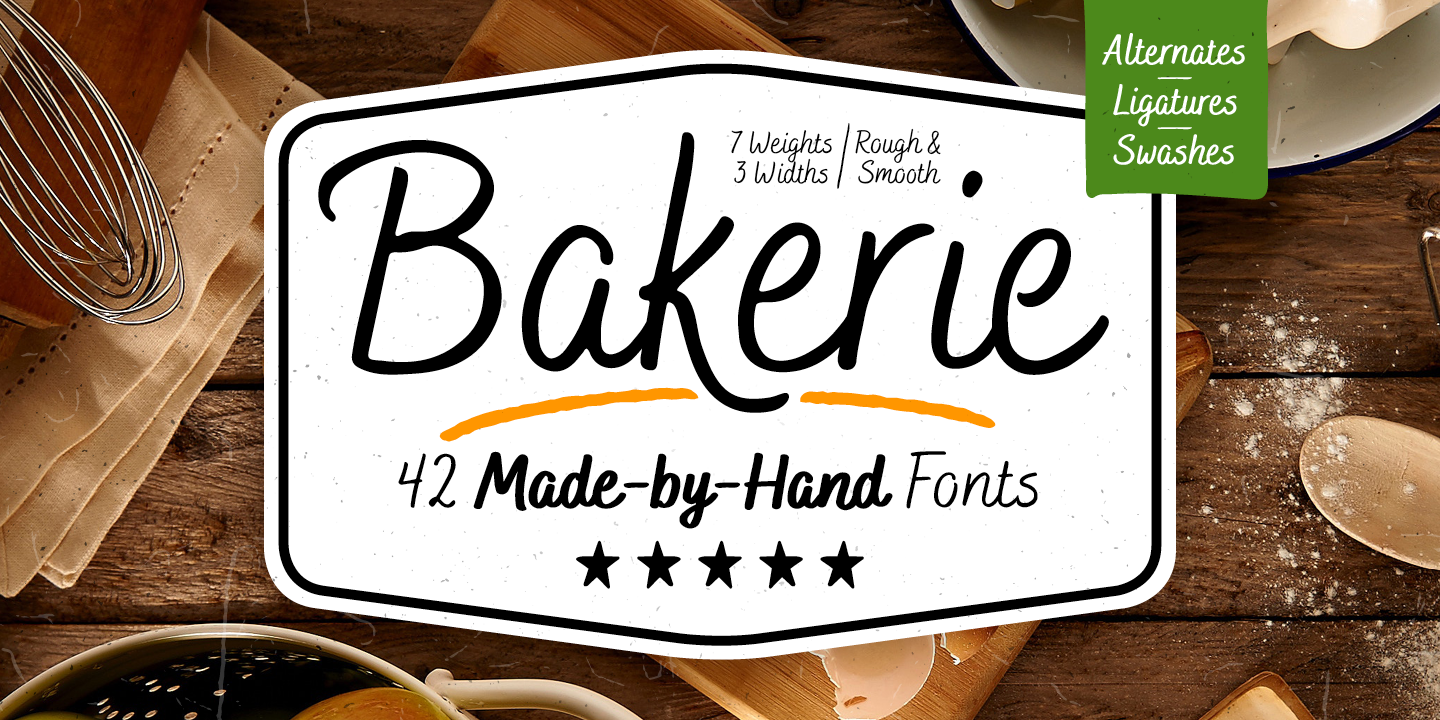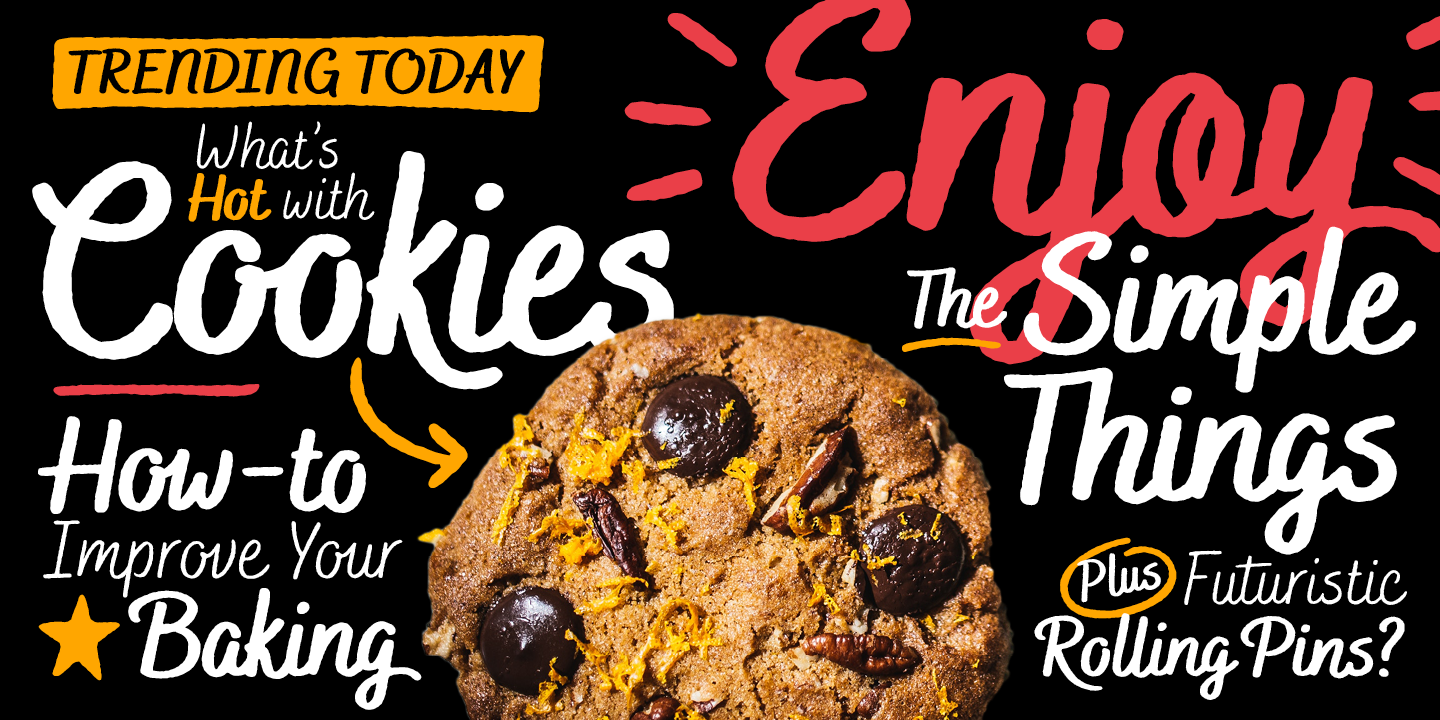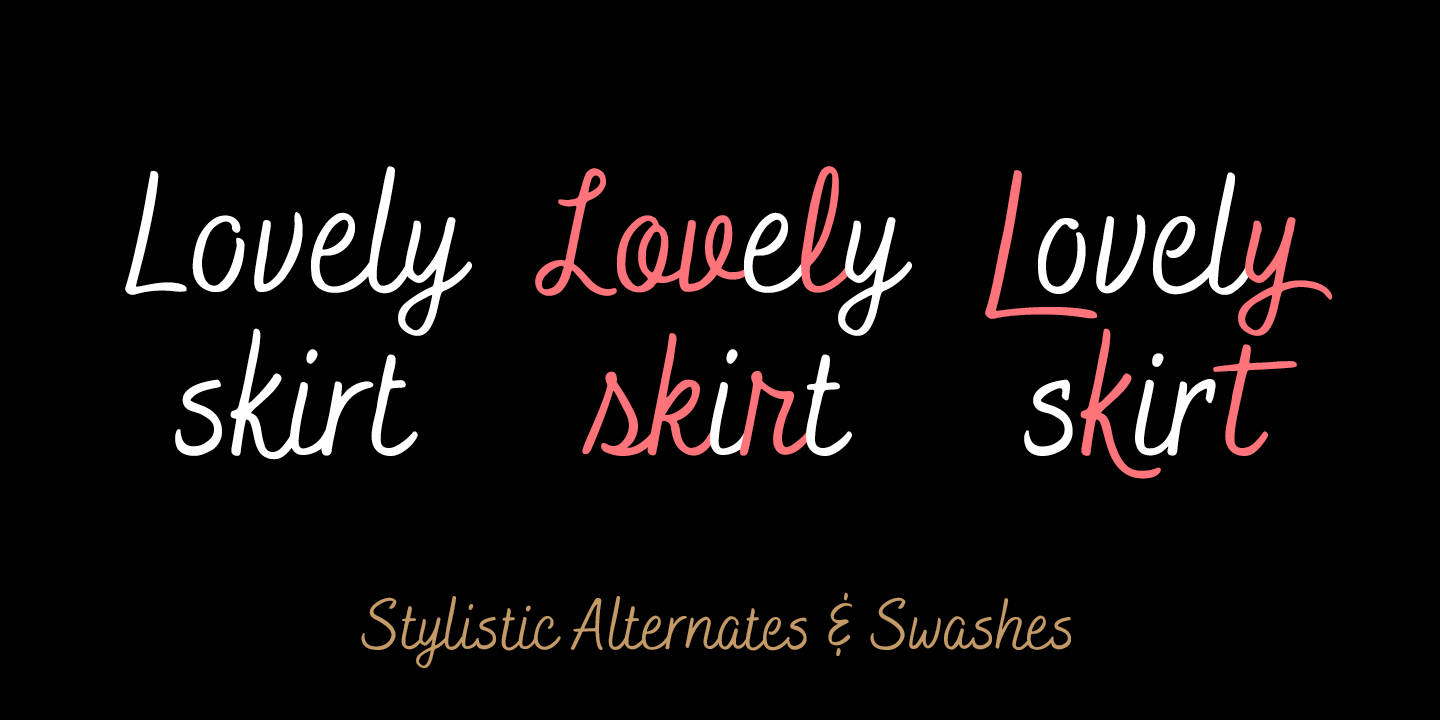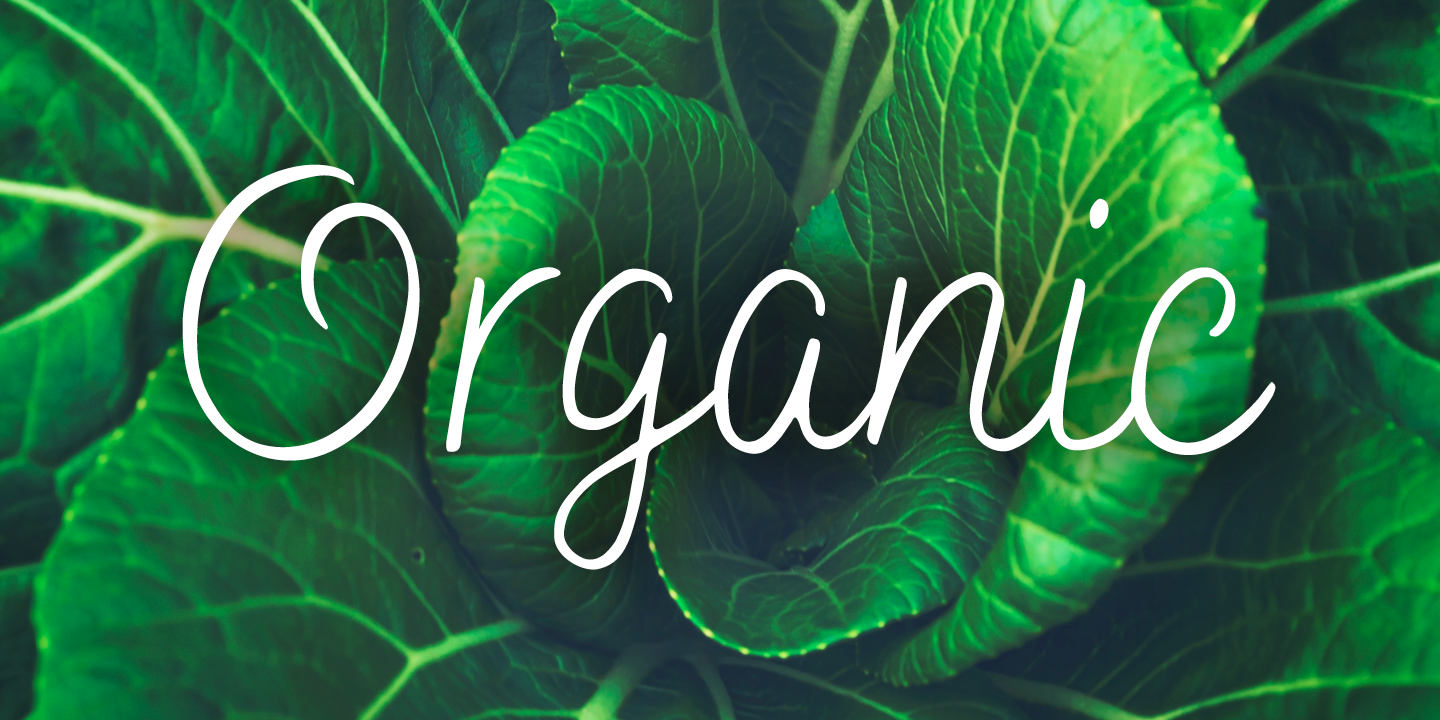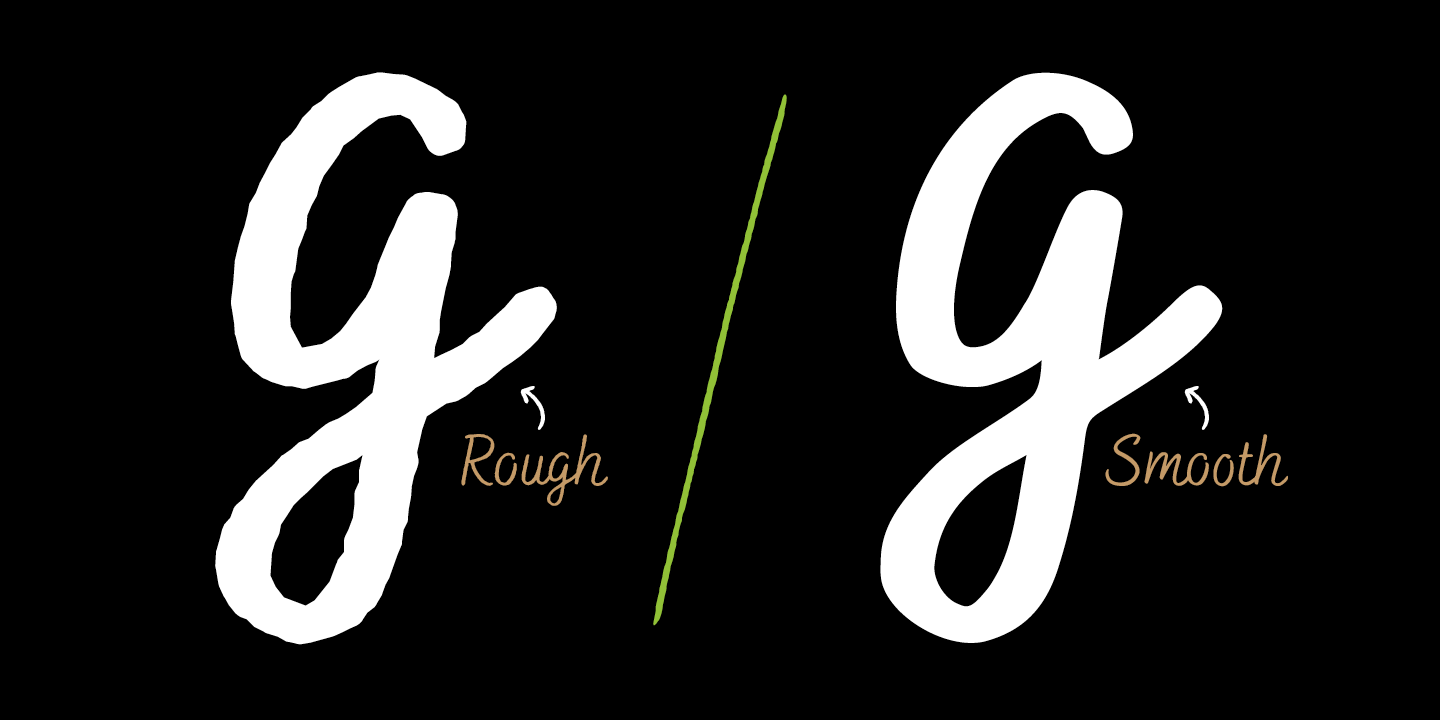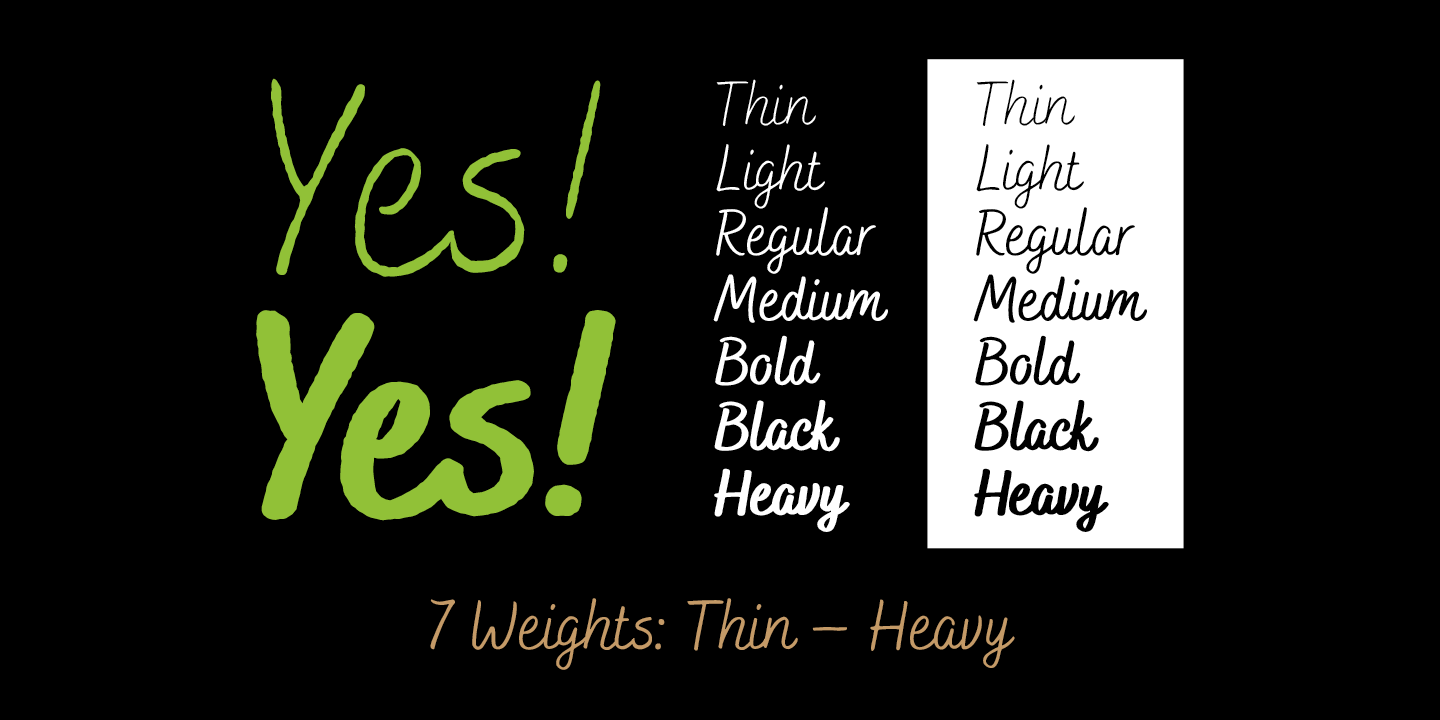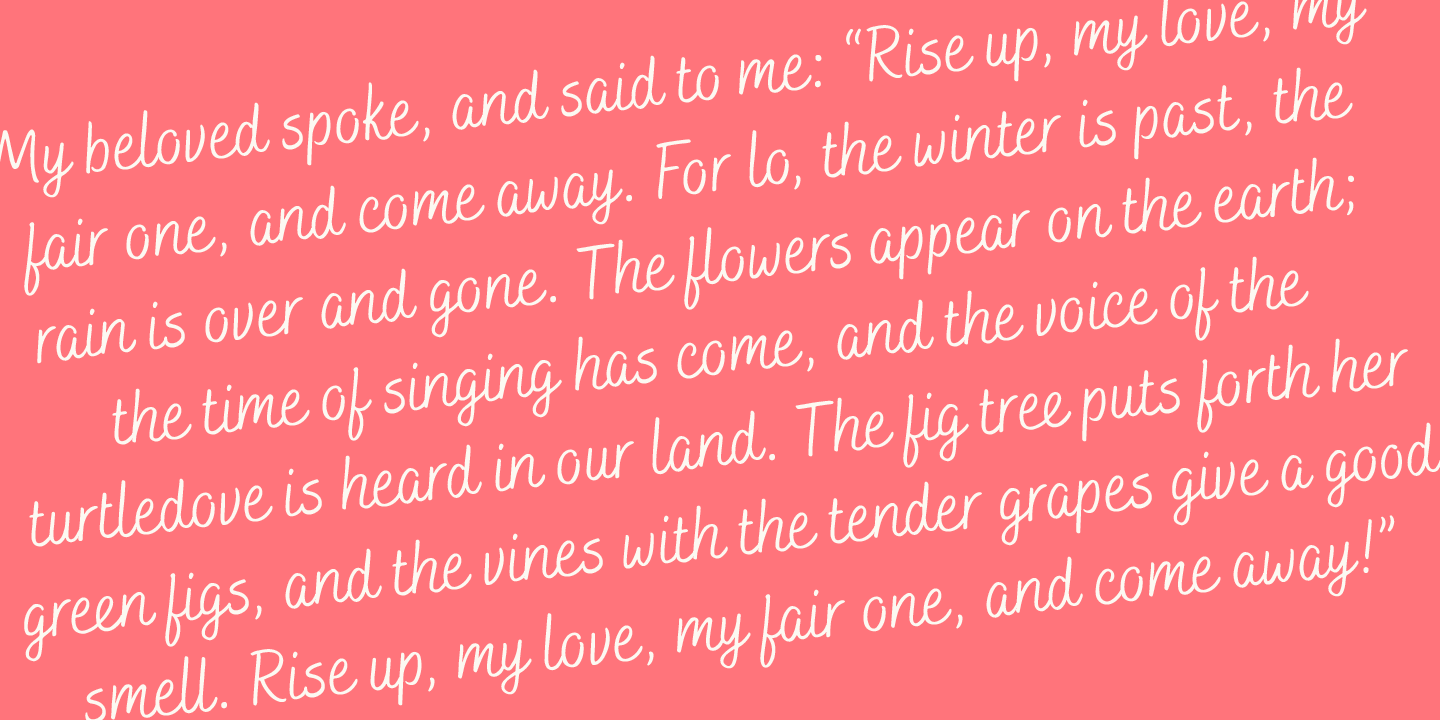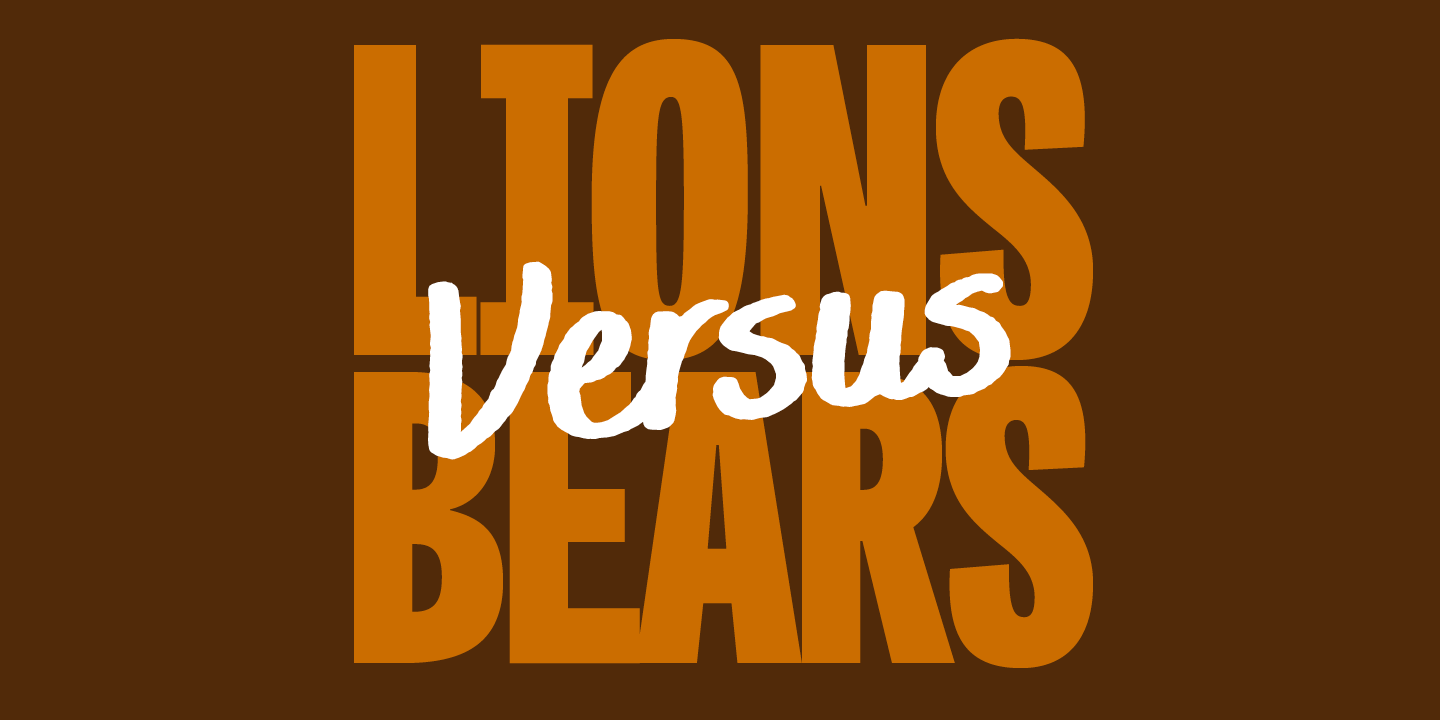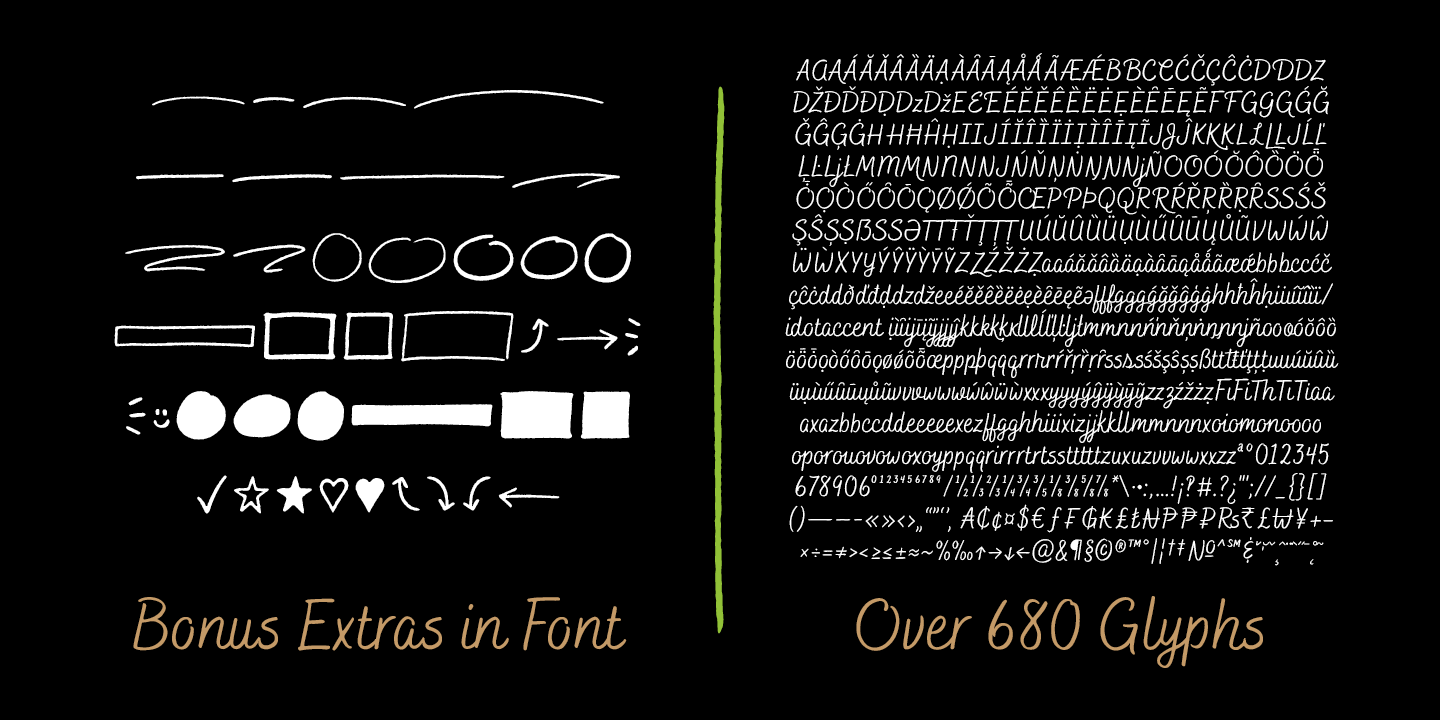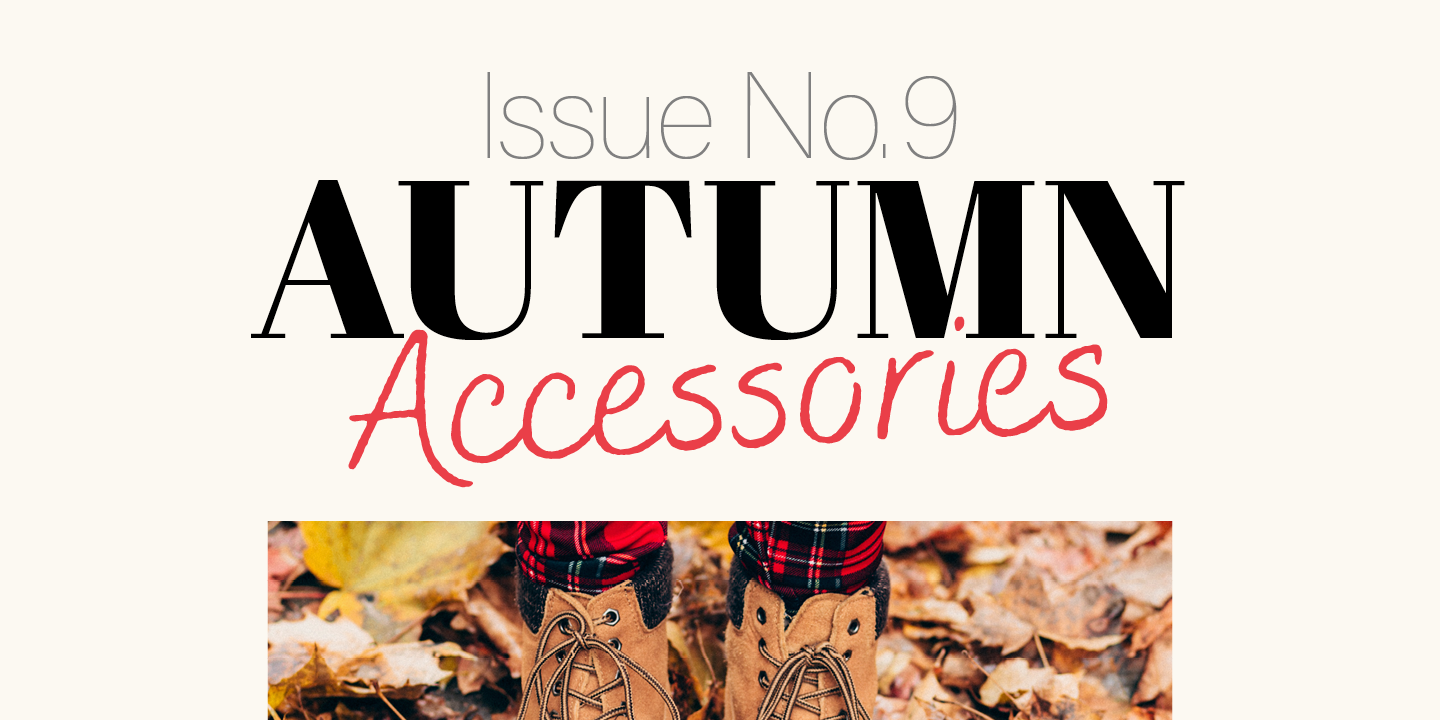
Bakerie is a handwritten script type family of 42 fonts, consisting of 7 weights, 3 widths, and 2 versions. Designed to be a hard-working, genuine handmade set of scripts that are useful in a variety of settings. The lighter weights evoke a signature quality and elegance, while the heavier weights are bolder and more playful. Choose from either a rough edge or smooth edge to fit the need. Though created by brush pen on paper, the letters were drawn carefully to make them very readable, even at smaller sizes.
Right away, Bakerie fonts will look good as you type, but you’ll find that the multiple stylistic alternates, standard and discretionary ligatures, and swashes will allow you to customize your typography to get an even more authentic, handwritten look. The 3 widths give you flexibility depending on the space in your layout. Also included in each font file are bonus line and ornament glyphs to help enhance your designs.